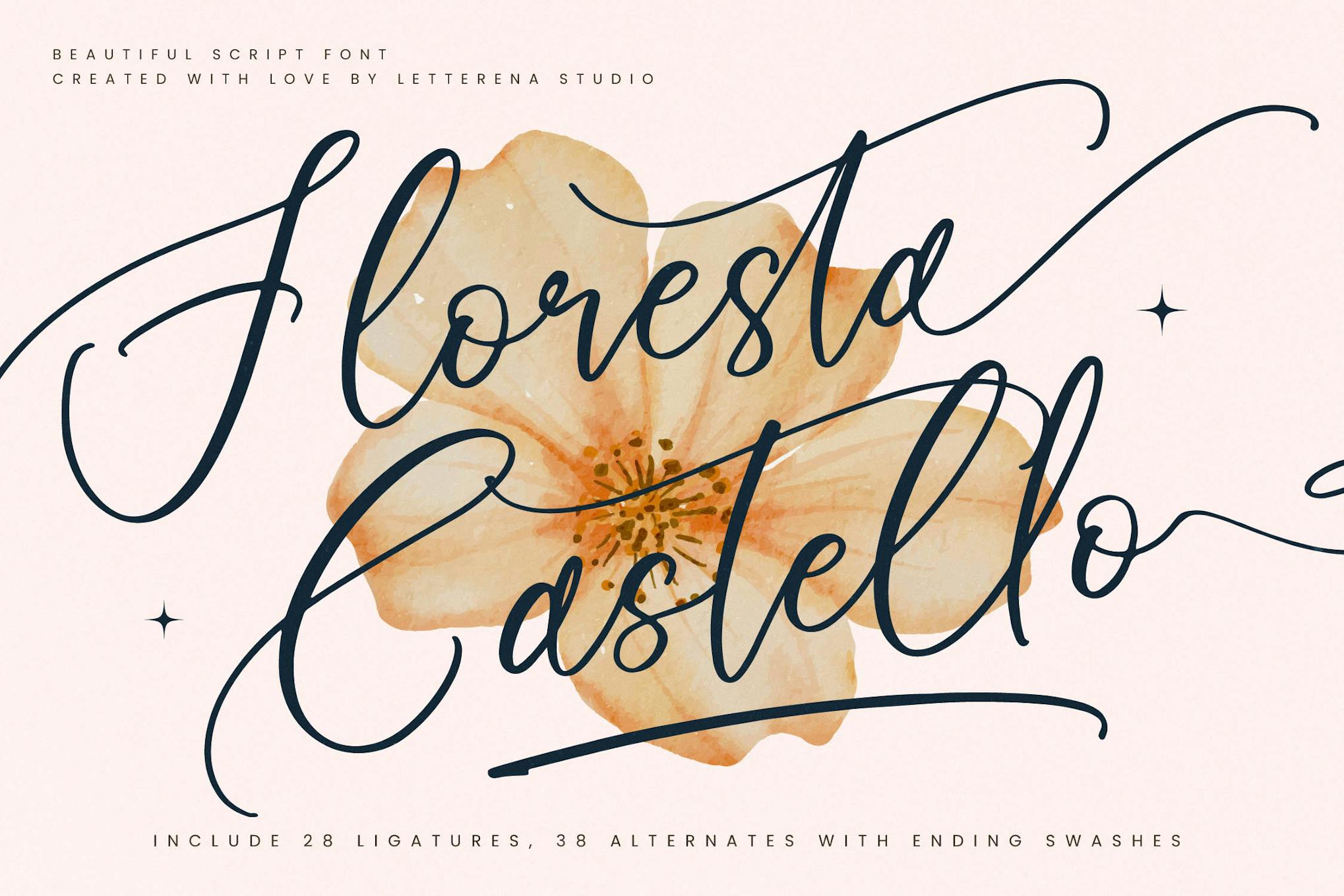
Floresta Castello Script Font
The Floresta Castello Script Font is perfect for luxury resort branding, elegant wine labels, romantic Italian wedding invitations, sophisticated restaurant menus, boutique hotel signage, artisan product packaging, heritage brand identities, classic book covers, refined social media graphics, and upscale hospitality communications.
What makes the Floresta Castello Script Font so exciting is its enchanting blend of Old World European elegance with flowing calligraphic artistry that evokes the romantic charm of Italian castles and Mediterranean sophistication. This exquisite typeface features graceful letterforms, sophisticated connecting strokes, and classical proportions that perfectly capture the essence of timeless European refinement and aristocratic heritage. The font's romantic personality and Old World charm make it an exceptional choice for luxury brands seeking to communicate heritage quality, sophisticated elegance, and authentic European sophistication with captivating visual appeal.
The Floresta Castello Script Font family includes elegant variations and classical flourishes, featuring decorative swashes, ornamental capitals, and connecting ligatures. Each variation maintains the signature European elegance while offering different levels of decorative sophistication and classical refinement, providing designers with extensive creative possibilities for crafting luxurious expressions and heritage-inspired brand communications.
This exceptional Floresta Castello Script Font Free Download represents the ideal luxury typography choice for designers who want to infuse their projects with authentic European elegance and sophisticated heritage appeal. Whether you're developing luxury hospitality brands, creating elegant wedding materials, or designing sophisticated wine and dining experiences, this versatile elegant script delivers enchanting results that resonate with audiences seeking genuine refinement and Old World sophistication.
The graceful calligraphic characteristics of Floresta Castello Script Font showcase masterful European script design, with each letter carefully crafted to flow seamlessly while maintaining classical proportions and sophisticated aesthetic appeal. The font's comprehensive character set includes uppercase and lowercase letters, numerals, elegant punctuation, and decorative symbols, ensuring complete functionality for diverse luxury projects and international heritage applications.
Perfectly suited for both digital and print luxury applications, this beautiful font maintains its sophisticated script character and European elegance across various sizes and formats. From large-scale resort signage to delicate wine label details, Floresta Castello Script Font adapts gracefully to any refined design challenge while preserving its distinctive Old World personality and classical European charm.